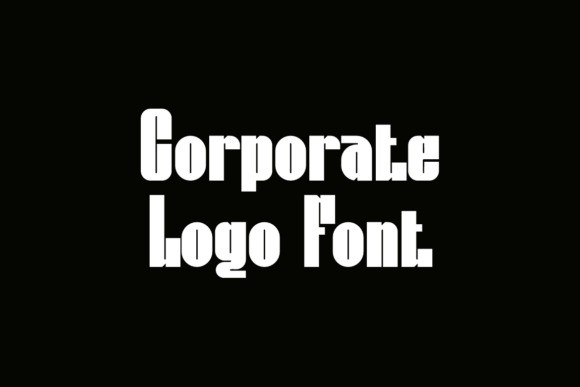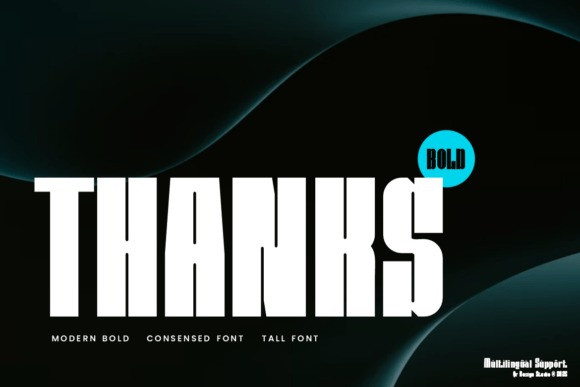
Qenio Font is a modern bold typeface designed with powerful verticality and narrow width, creating a commanding visual presence with minimal horizontal space. Its tall, condensed structure gives it a strong editorial voice, ideal for impactful headlines, posters, and branding where attention-grabbing clarity is key. Rounded terminals contrast with angular cuts, infusing softness into its rigid frame. The stencil-style detailing adds a contemporary, industrial edge without compromising legibility. With a unique blend of art-deco flair and futuristic tension, Qenio exudes elegance and strength—perfect for fashion branding, music artwork, or tech-forward identities seeking bold distinction.